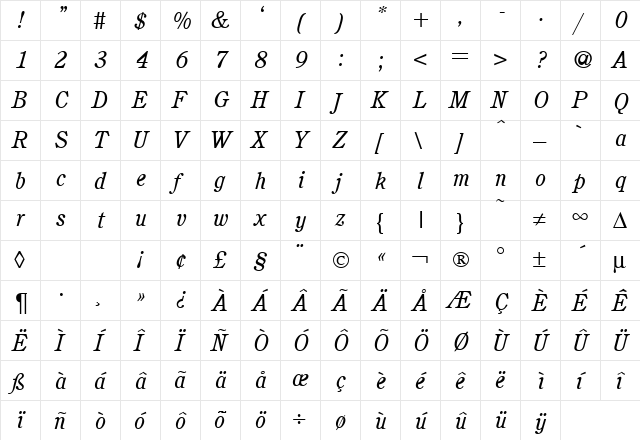
CushingNova RegularItalic Font Preview
CushingNova RegularItalic
CushingNova RegularItalic Font Details
Design Context for CushingNova Typeface
CushingNova offers clean, dependable letterforms without strong stylistic allegiance, making it a practical choice for designers who need flexibility. The dynamic lean of this cut emphasises speed and emphasis in any layout.
Pro Tip: Use CushingNova for emphasis, pull quotes, and subheadings where its slanted energy can add rhythm to the layout.